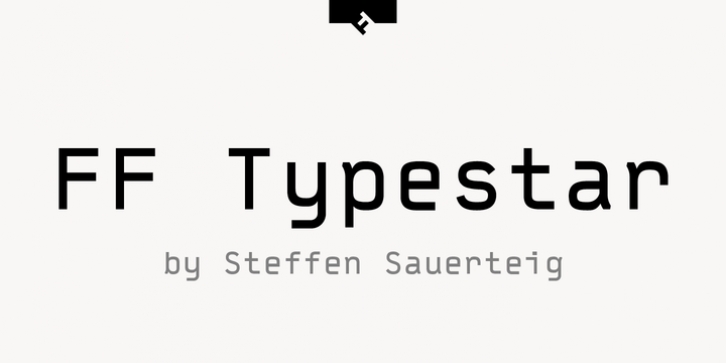
FF Typestar OCR was designed by Steffen Sauerteig and published by FontFont. FF Typestar OCR contains 2 styles and family package options.
German type designer Steffen Sauerteig created this slab FontFont in 1999.
The font is ideally suited for logo, branding and creative industries and software and gaming.
FF Typestar OCR provides advanced typographical support with features such as ligatures, alternate characters, case-sensitive forms, super- and subscript characters, and stylistic alternates.
It comes with tabular lining figures.
This FontFont is a member of the FF Typestar super family, which also includes FF Typestar.